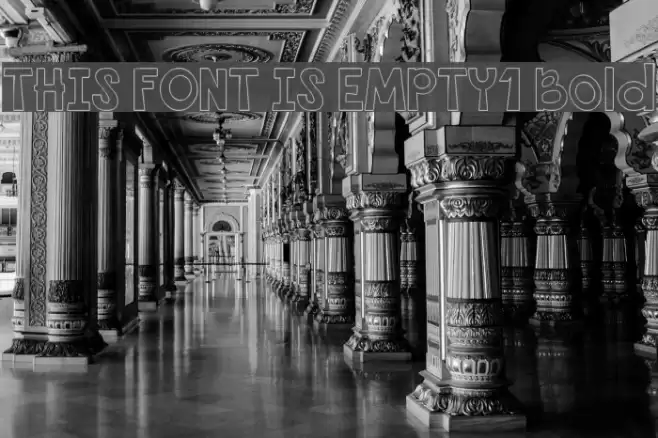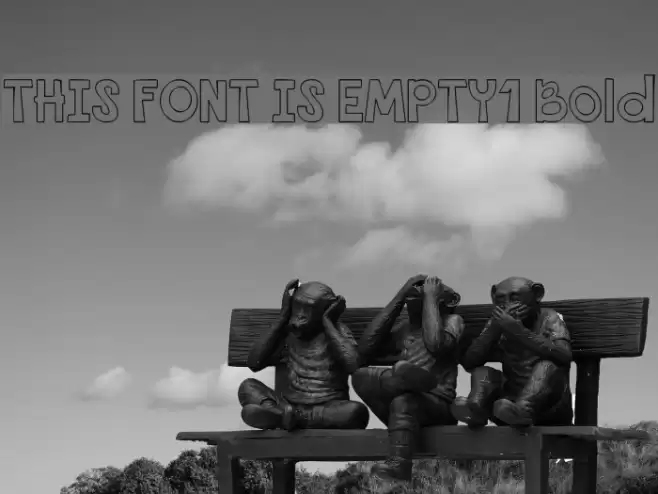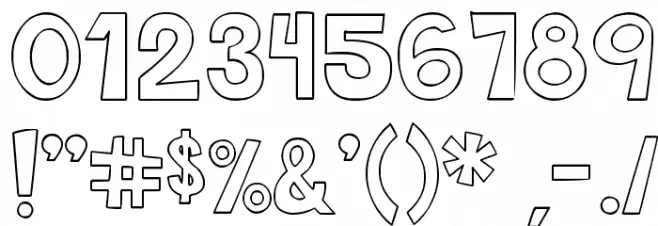
THIS FONT IS EMPTY1 Bold Font
THIS FONT IS EMPTY1 Bold Description
This playful and bold font features hollow, outlined characters that give it a unique and eye-catching appearance. The uppercase and lowercase letters maintain a consistent style, with rounded edges and a slightly whimsical flair. The numbers and special characters are designed to match the overall aesthetic, making it versatile for various creative projects. The font's design is both approachable and fun, making it suitable for informal and lighthearted contexts. Its bold outline ensures visibility and impact, while the hollow interior adds a touch of modernity and creativity.
A playful, bold, and hollow outlined font with a whimsical style from Uncategorized fonts.
- Proposed Projects: Ideal for children's books, playful branding, posters, and creative invitations.
- Overall Style: Playful, Modern, Whimsical